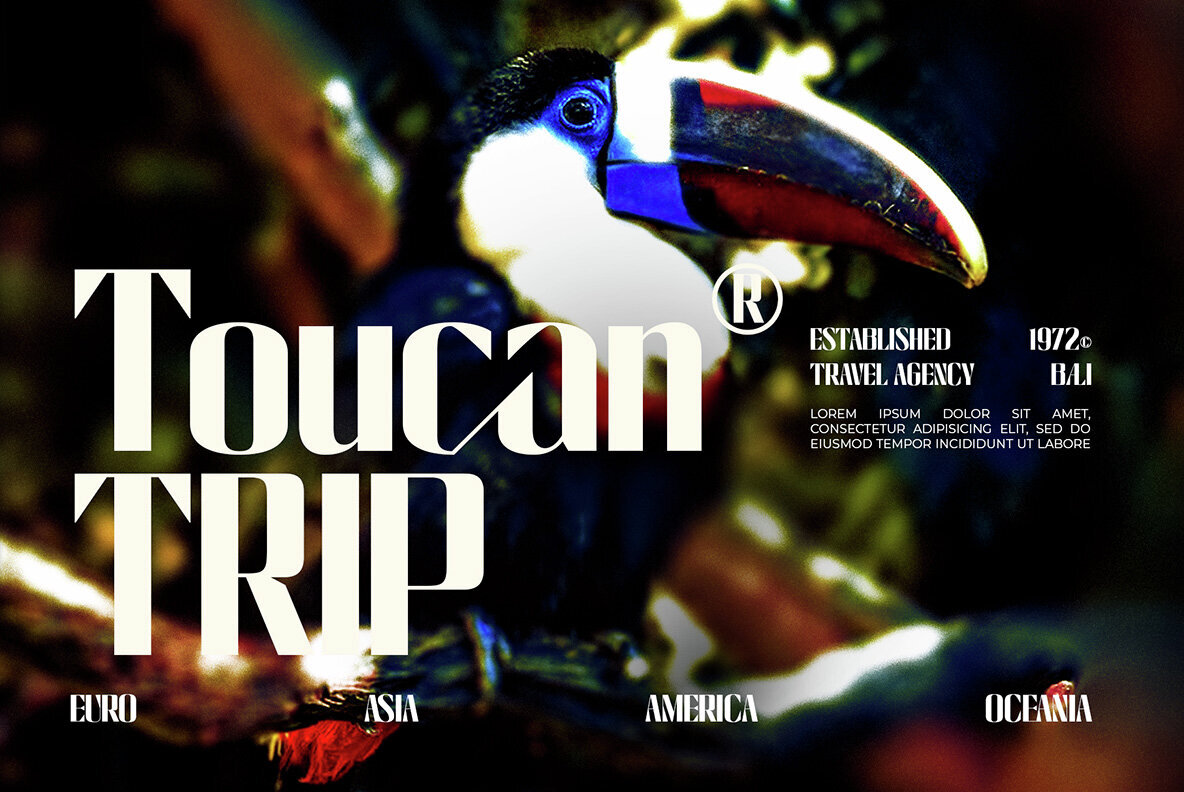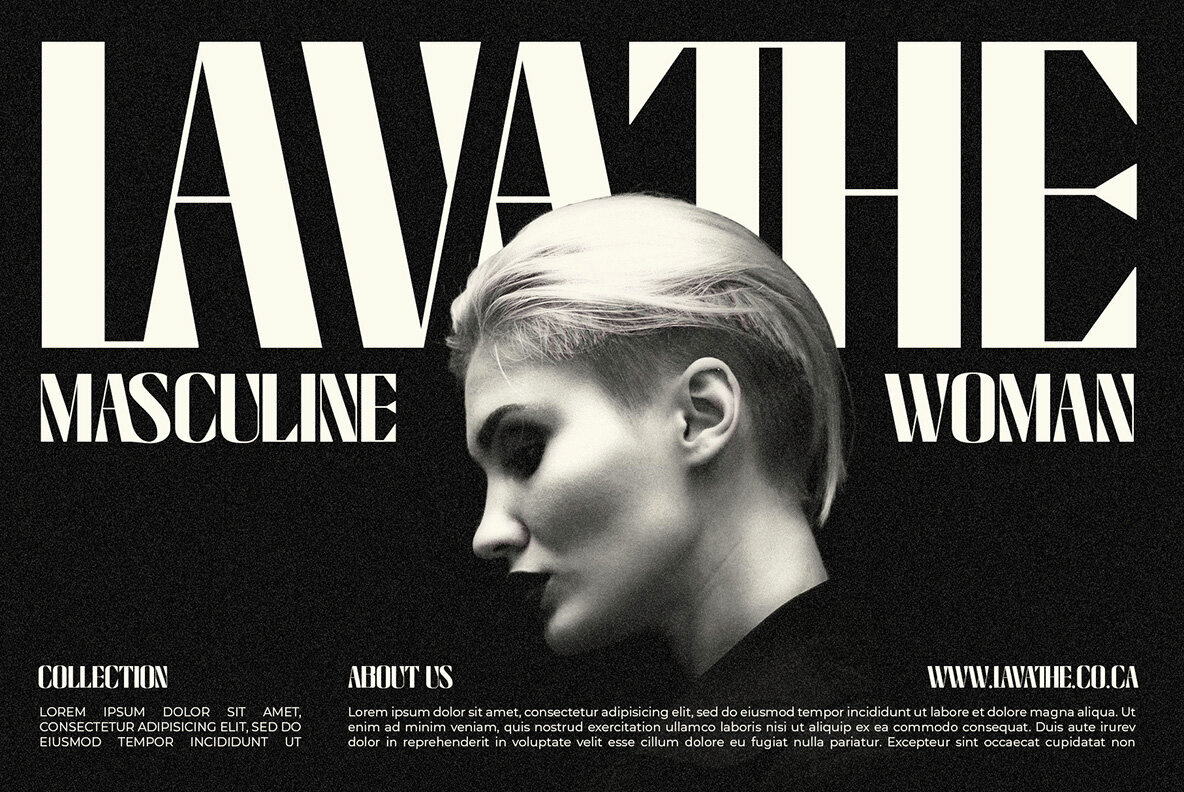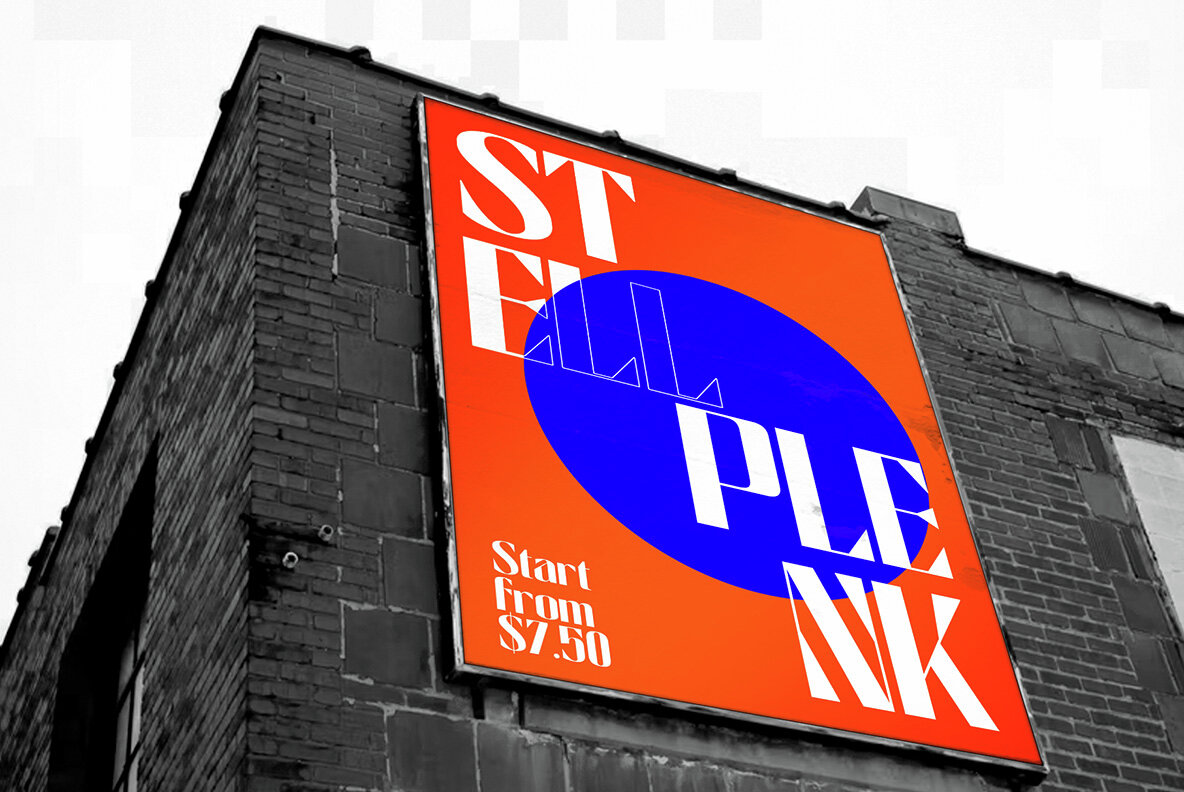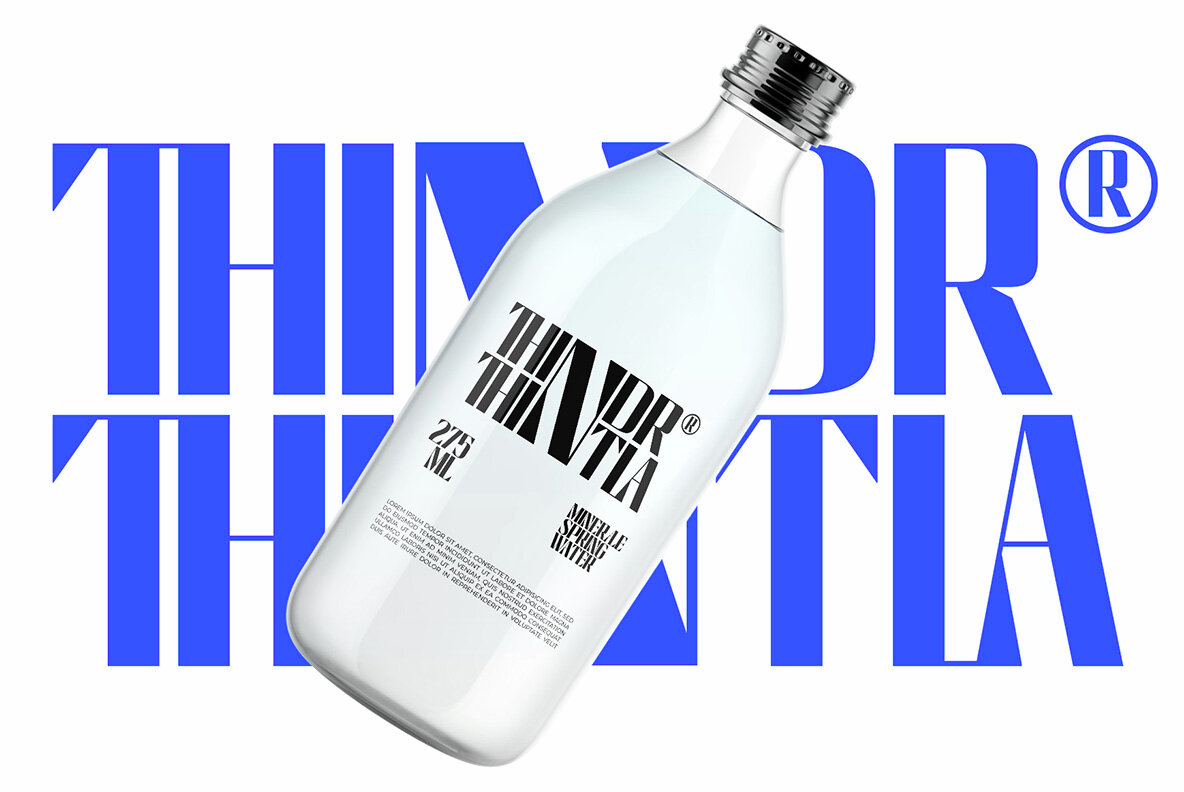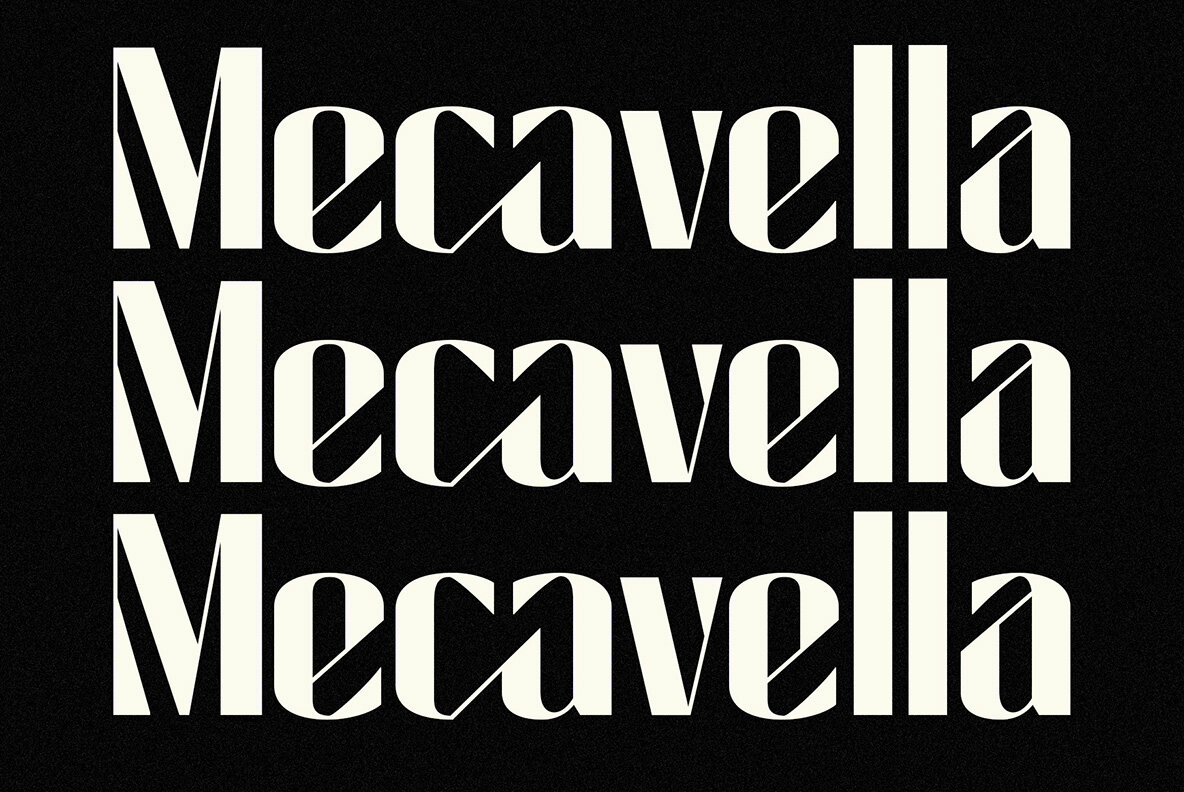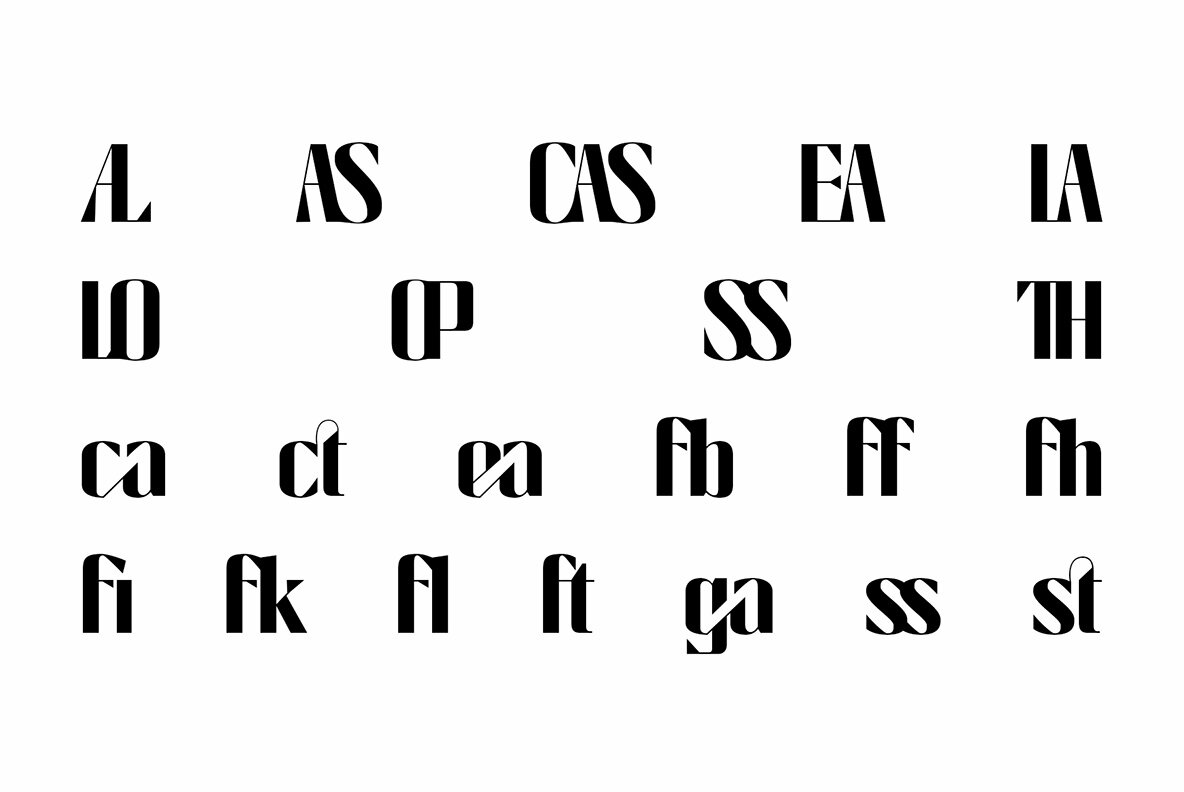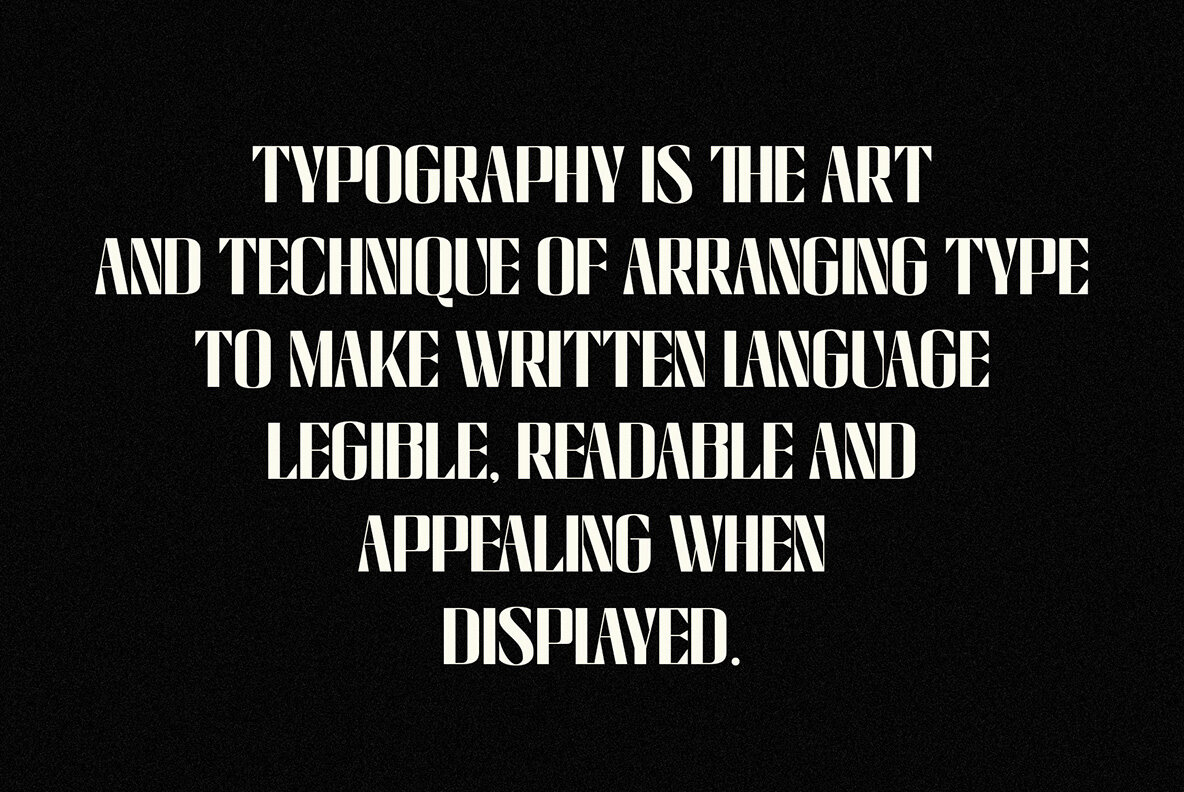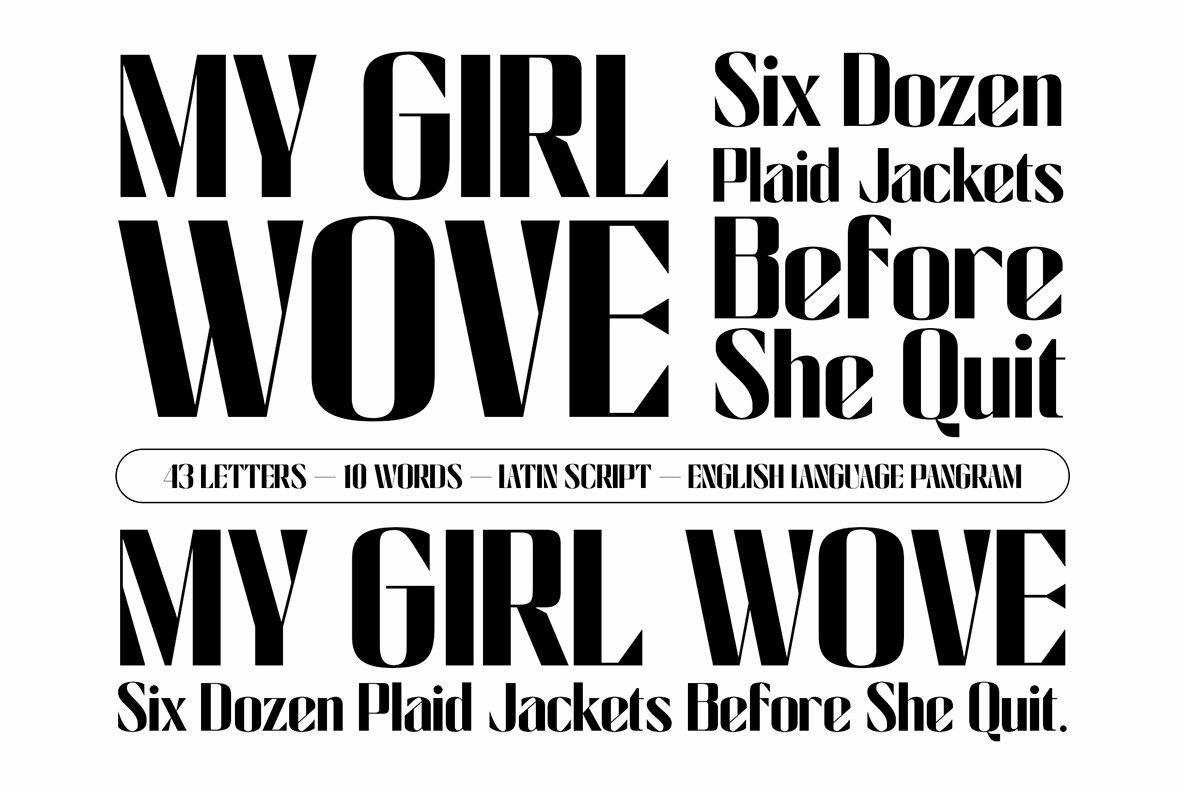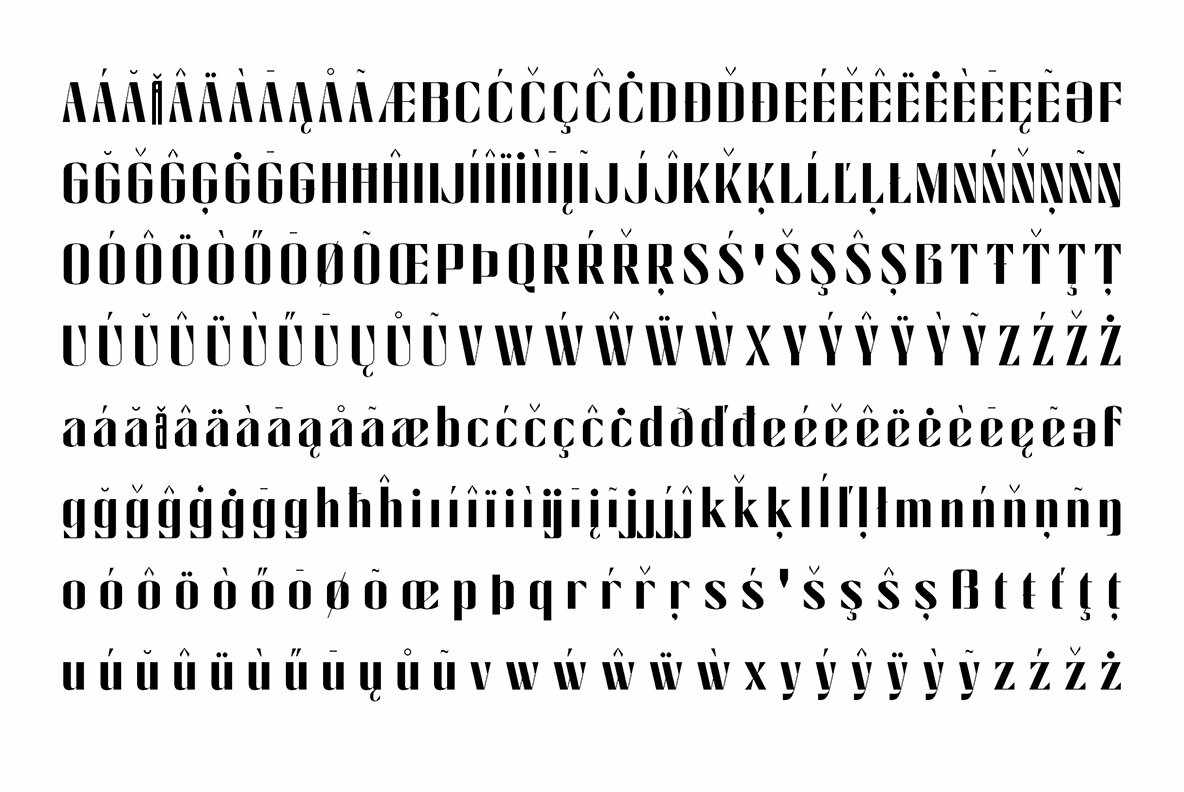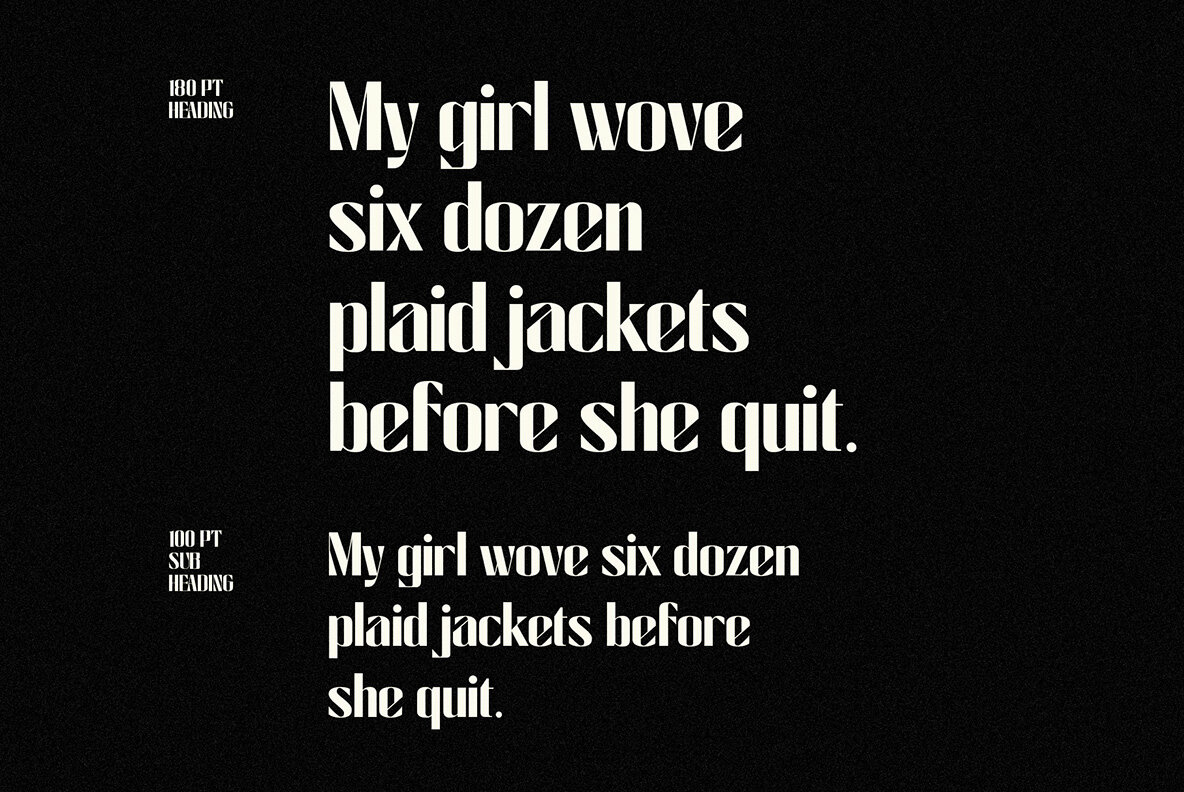
Cas Calisaya is a bold sans serif font that brings together holographic surrealism with vibrant flare and contrast, breaking traditional boundaries with its international charm. This font captures the essence of authenticity and minimalism in storytelling, ensuring both timelessness and prominence. With a fusion of dramatic elements reminiscent of Brandon Grotesque and a retro flat style, Cas Calisaya is firm, smart, and beautiful, making it the perfect choice for expressive and custom designs. Experience the impressive impact of Cas Calisaya across various design applications, including websites, packaging, logos, and branding. It's also ideal for album covers, 3D projects, and posters. Meticulously crafted for a balance of modernity and luxury, this font establishes a strong sense of trustworthiness and innovation, with a thunderous presence that ensures an attention-grabbing touch signature to the Risoprint aesthetic. The high contrast offers a graceful space, making your projects stand out, while the font’s elegance and expressiveness make it ideal for luxury and fashion-oriented designs. Cas Calisaya supports a wide array of languages, including Bosnian, Catalan, Czech, Danish, German, English, Spanish, Estonian, Finnish, French, Irish, Croatian, Hungarian, Icelandic, Italian, Lithuanian, Latvian, Maltese, Dutch, Norwegian, Polish, Portuguese, Romanian, Slovak, Slovenian, Albanian, Swedish, and Turkish.Cas Calisaya: Bold, Vibrant Sans Serif Font